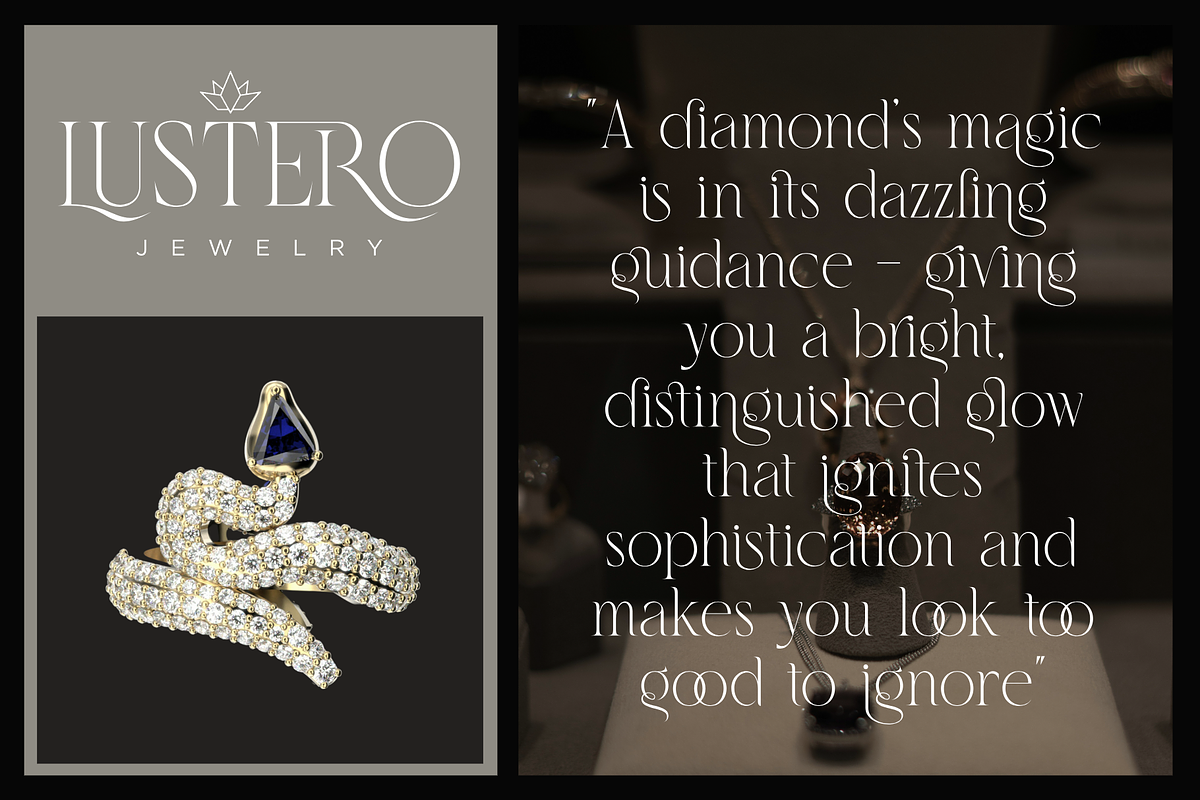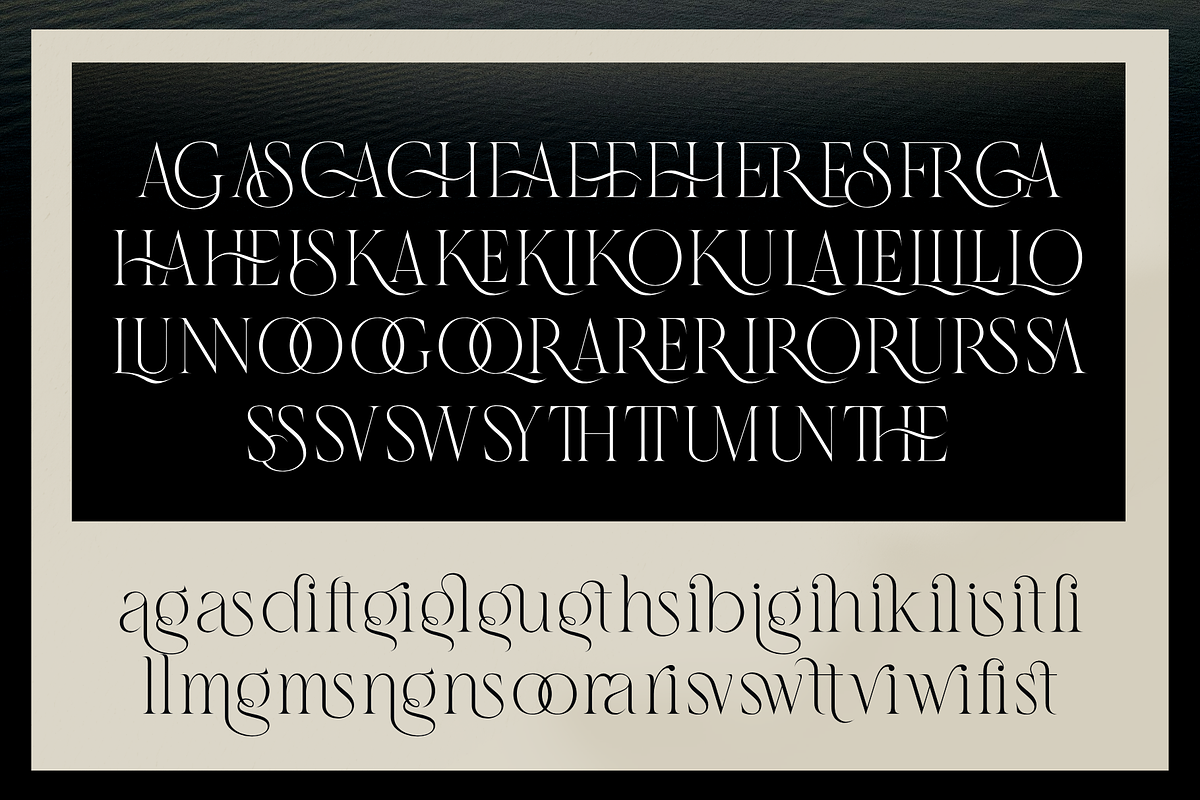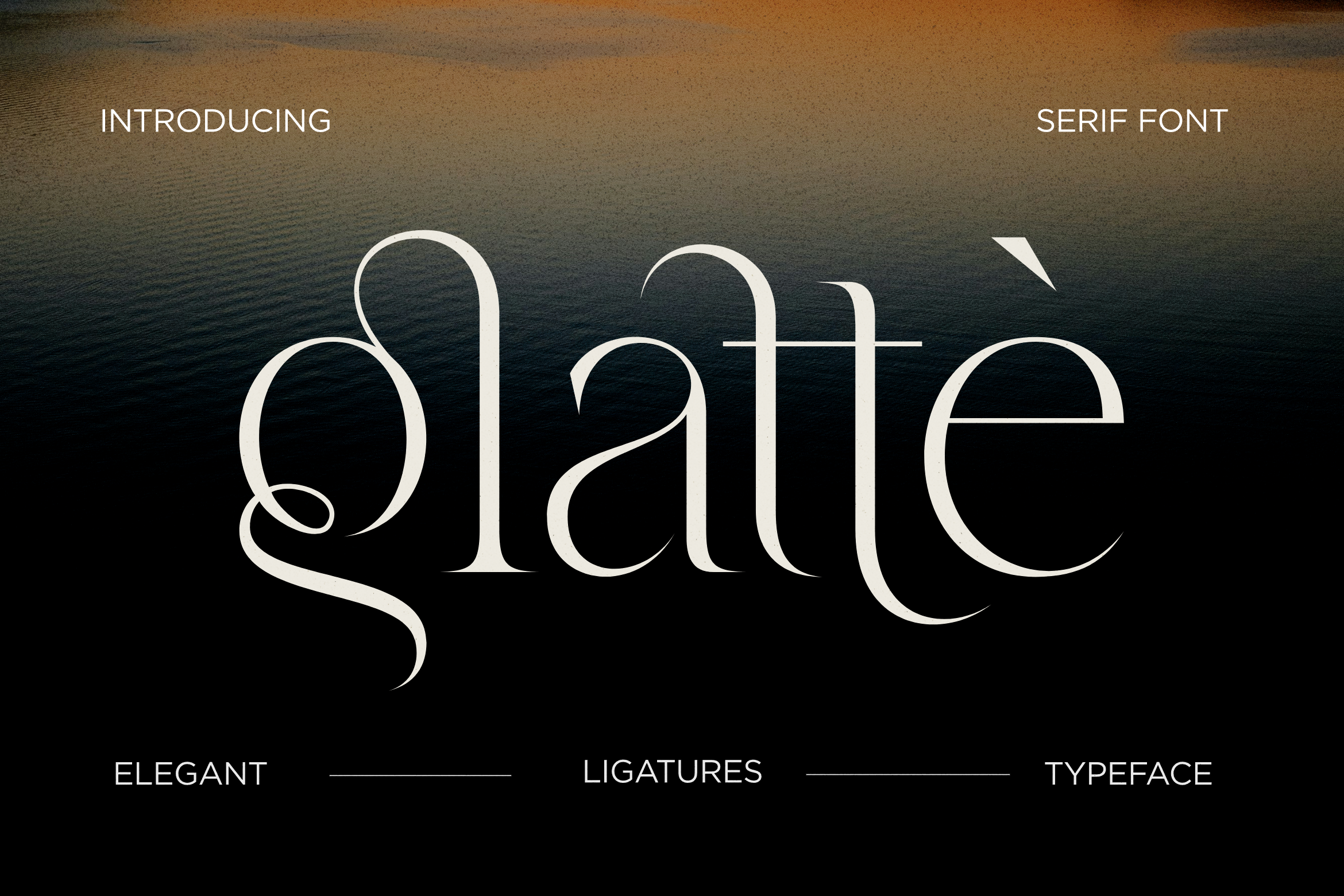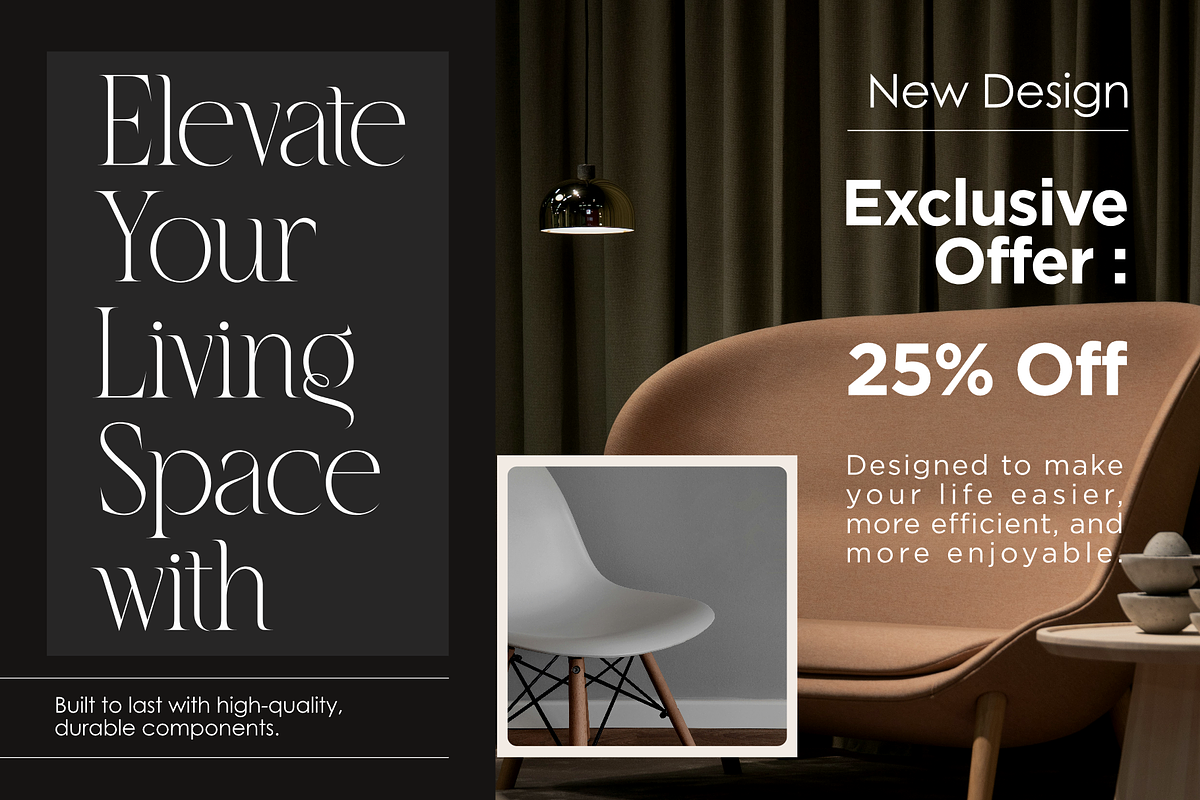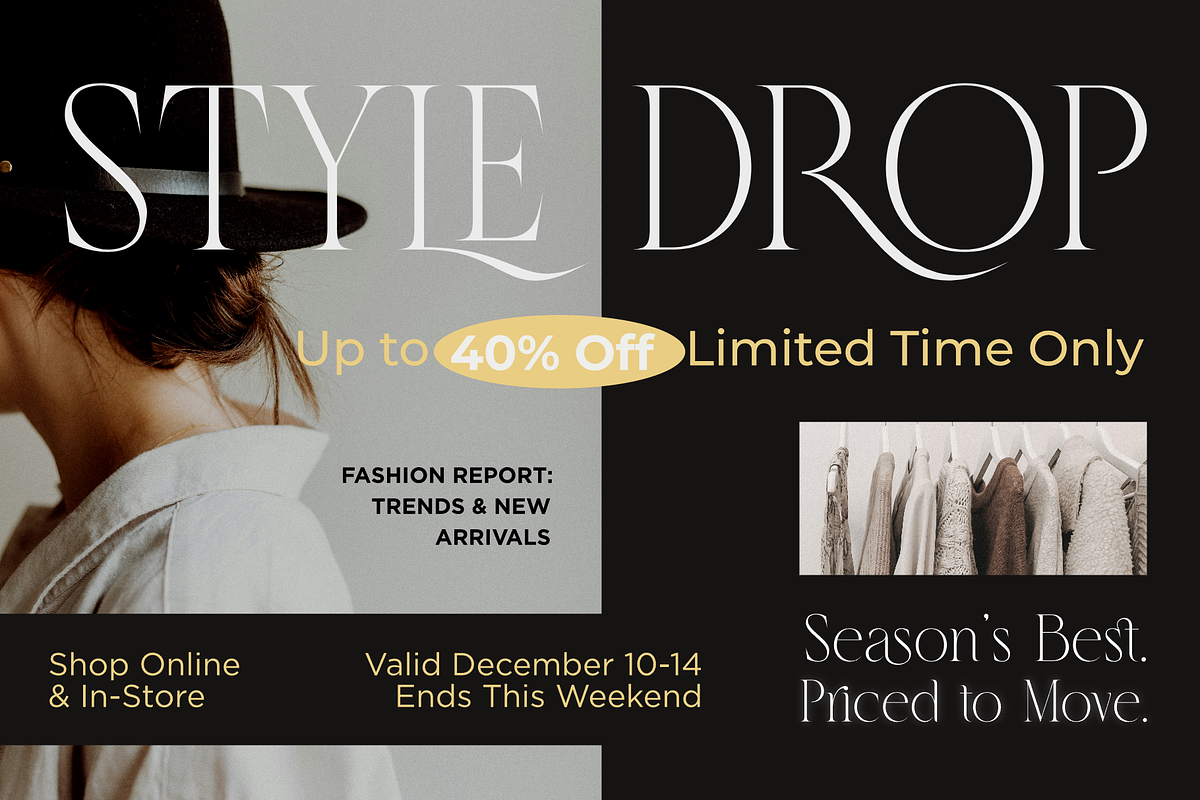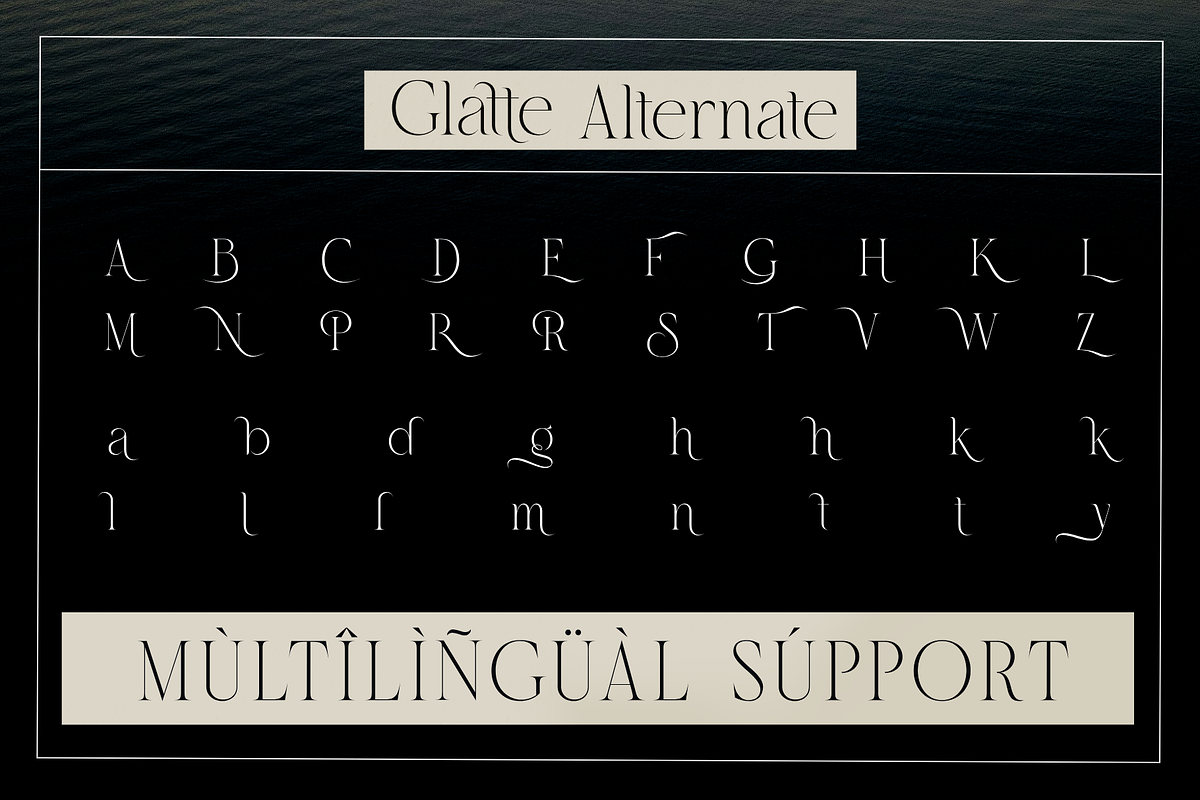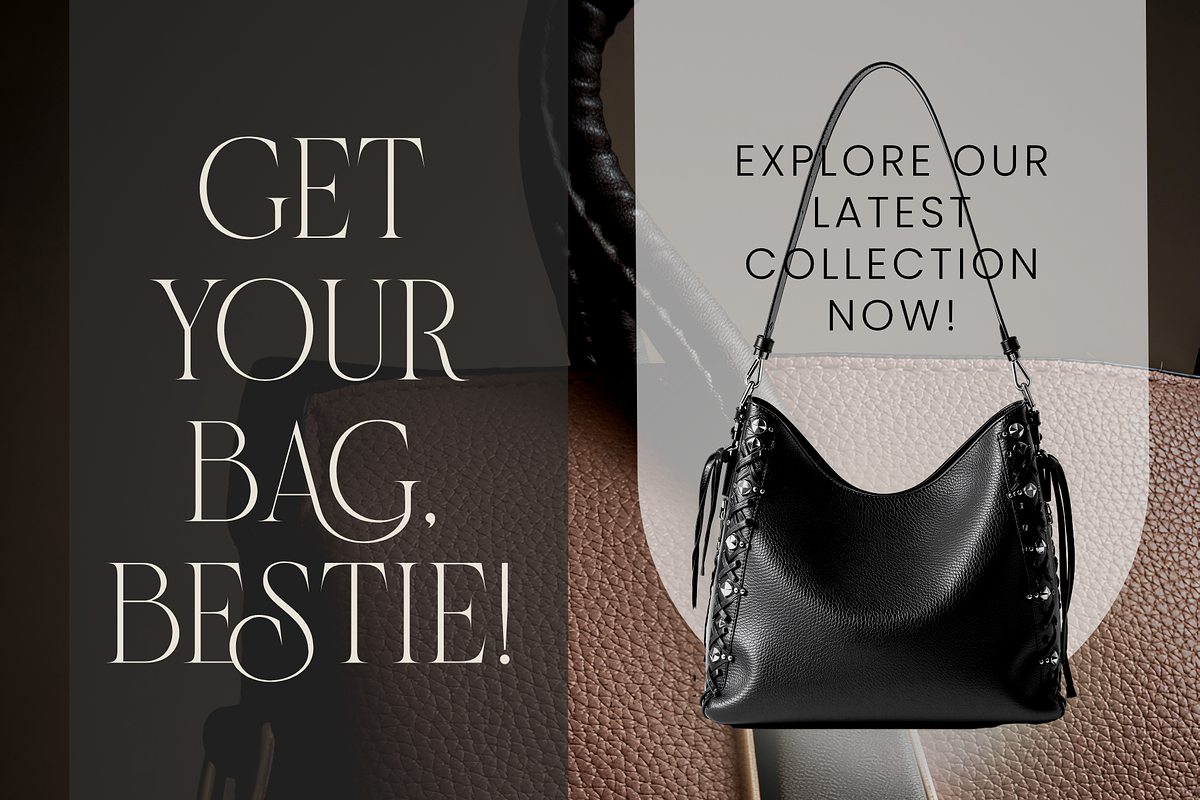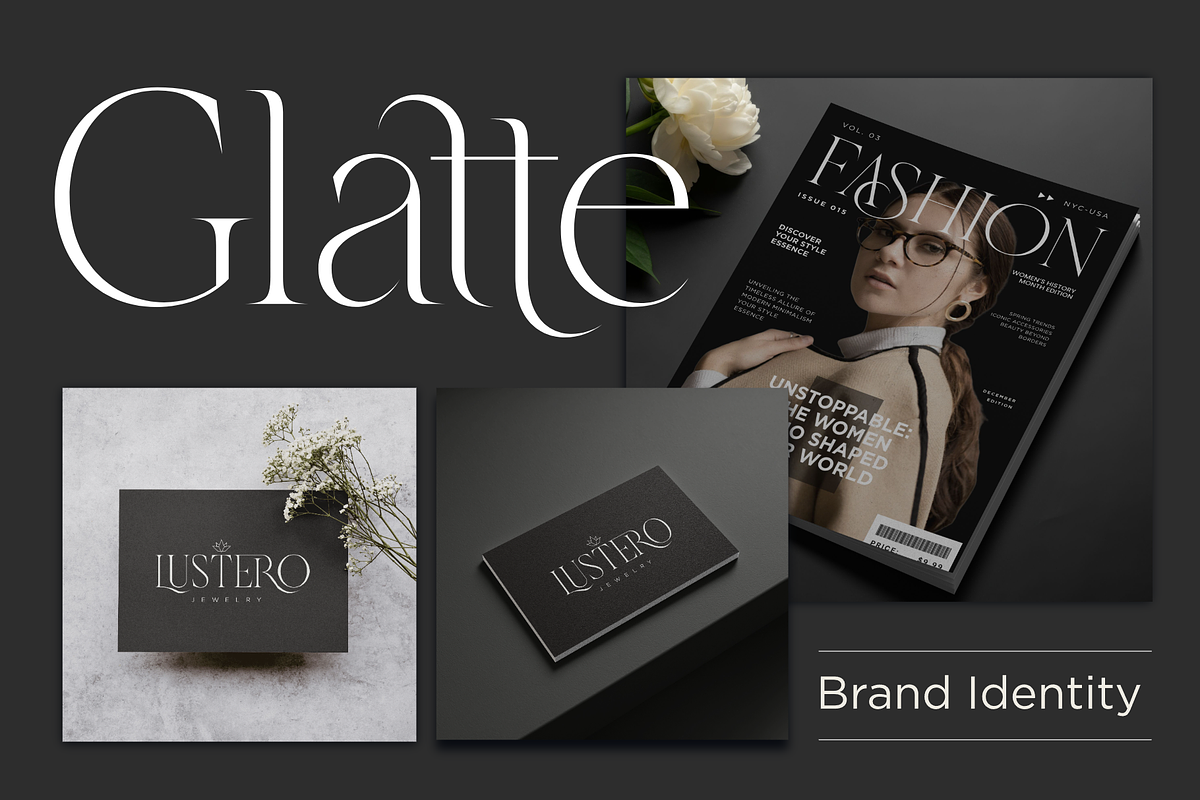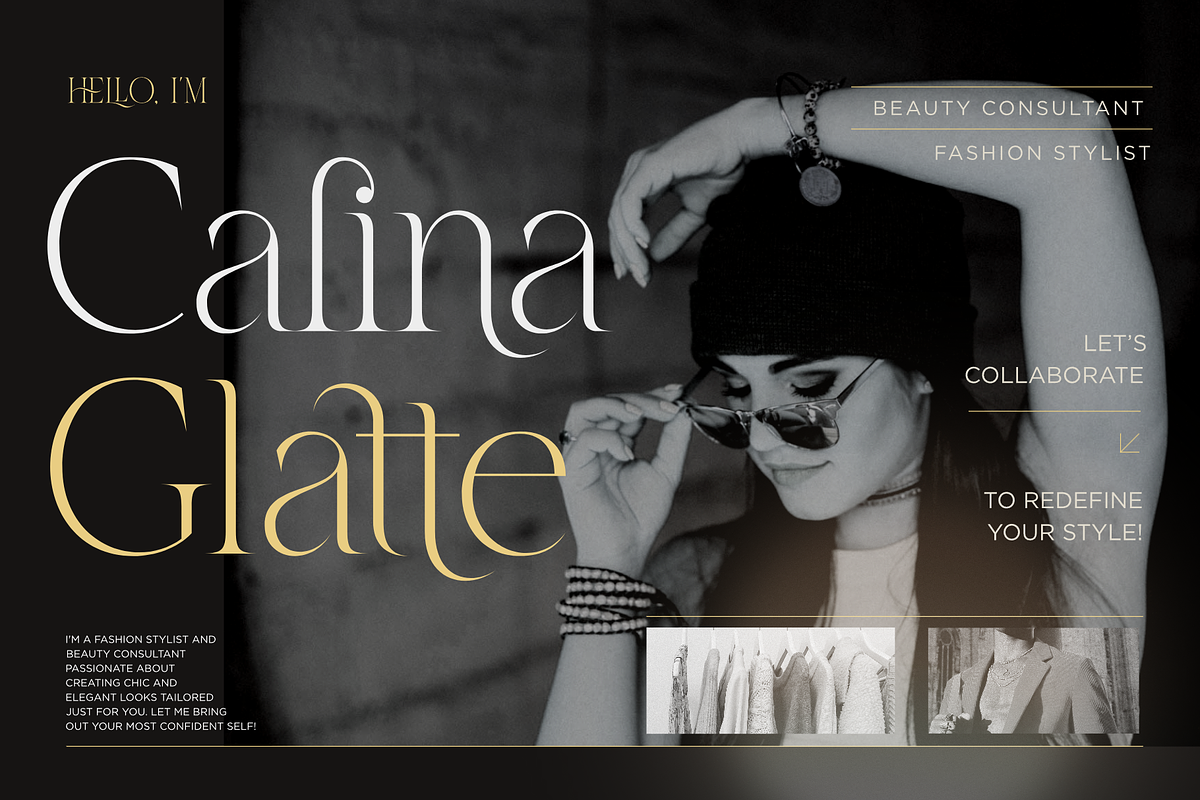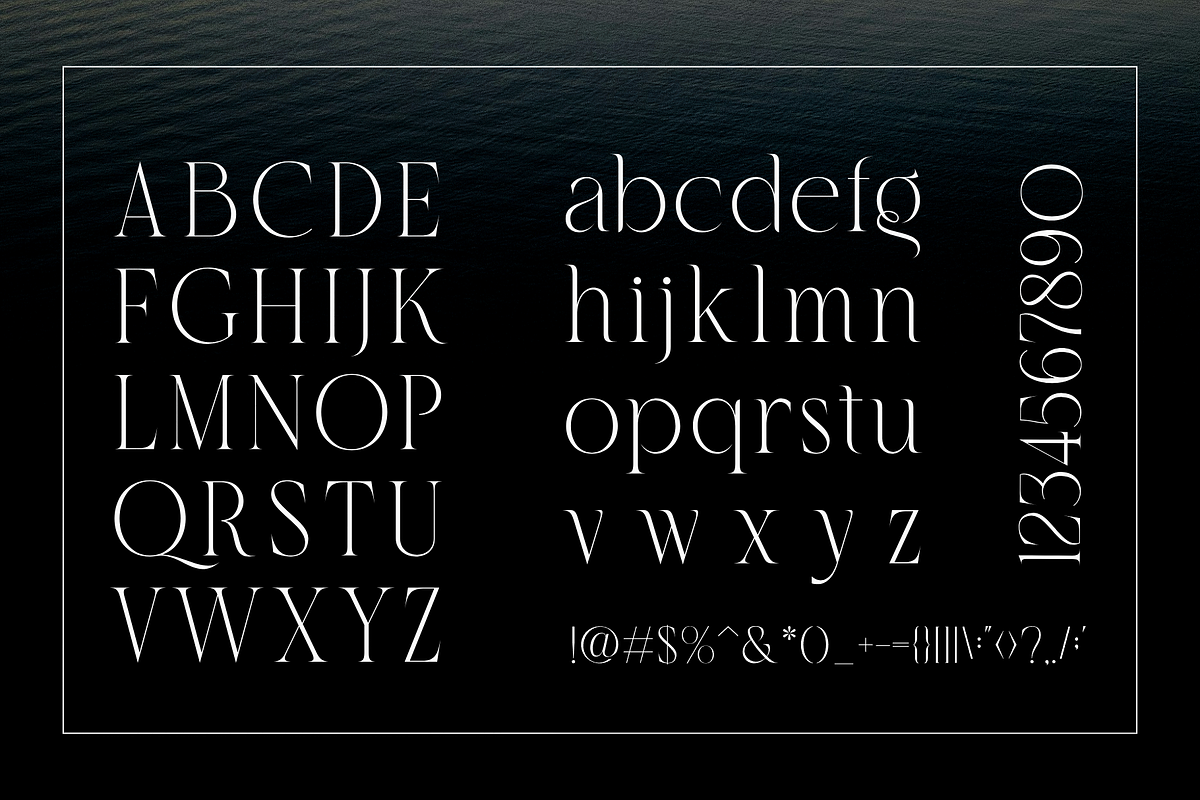
Glatte Ligature Serif Font
Step into sophistication with Glatte, a modern serif font that blends timeless elegance with contemporary flair. Crafted with precision and artistic finesse, Glatte features graceful curves, high-contrast strokes, and refined serifs that exude luxury and style.
Perfectly suited for branding, editorial design, high-end fashion, and upscale packaging, Glatte adds a touch of class to every project. Whether used for headlines, logos, or refined typography layouts, this font commands attention without shouting — it whispers elegance.
Elevate your designs with Glatte — where modern minimalism meets classic beauty.